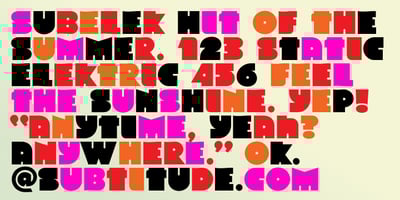
Subelek Font Family was designed by Valérie Desrochers and published by Subtitude. Subelek contains 1 styles and family package options. First developped for a logo that was rejected we made a font of it! It is an old-style techno but still modern new font (what a mix!). It is simply playful and fashionable.